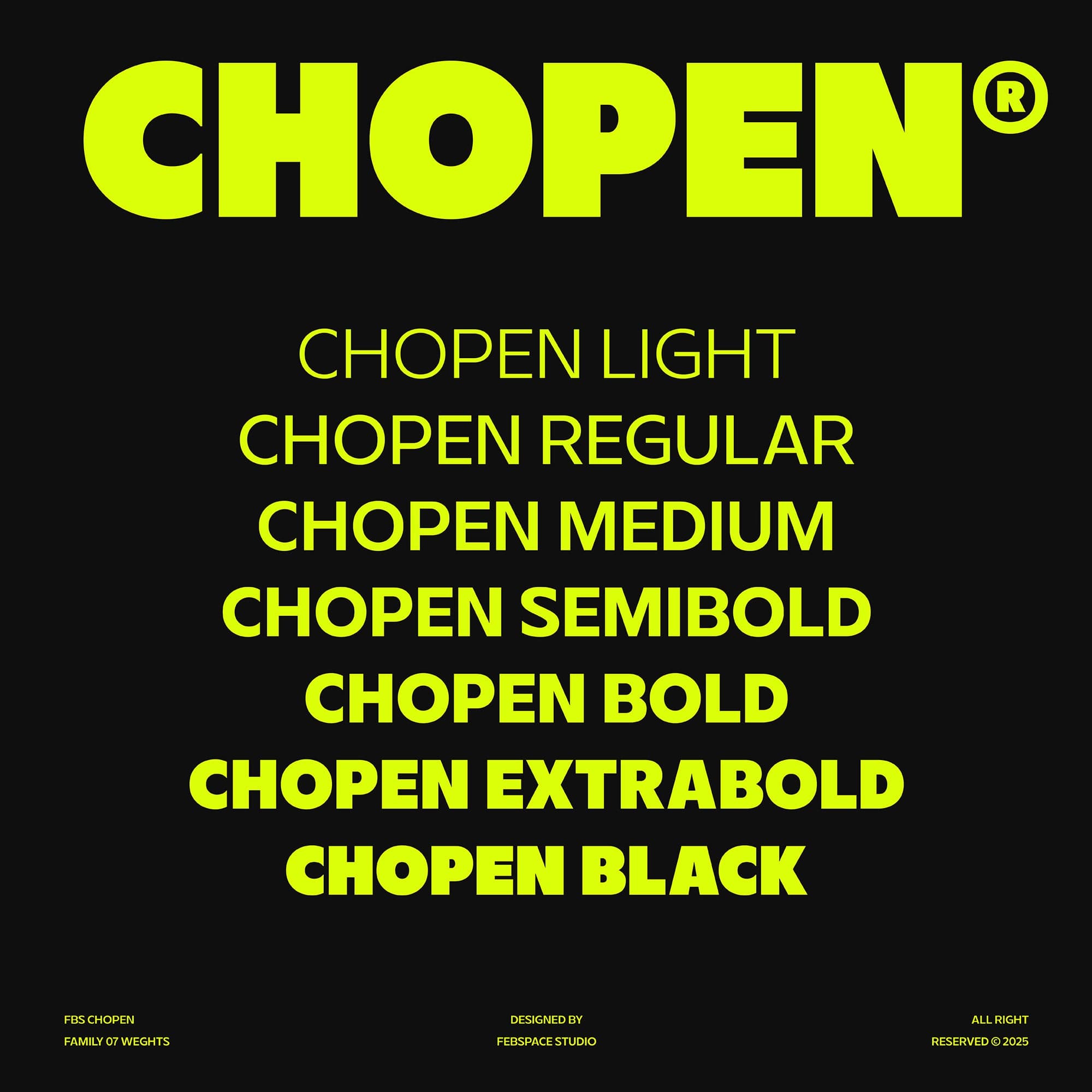
<p><strong>FBS Chopen</strong> delivers a geometric sans-serif design, inspired by the retro aesthetics of the 80's sans, with a modern and minimalist touch. Designed for today’s digital and branding needs, it offers the perfect balance of readability and style. Its clean, structured look makes it an excellent choice for interface design, corporate branding, and contemporary visual identities.</p> <p><strong>Extensive Glyph Set and Features</strong><br>Every font in the Chopen family is equipped with over 431 glyphs, offering advanced typographic options to support your creativity:</p> <ul> <li><strong>OpenType Features</strong></li> <li><strong>Multilingual Support</strong></li> </ul> <p><strong>Font Family Overview</strong><br>FBS Chopen collection includes seven carefully designed weights, from light to black,<br>providing flexibility for both subtle and bold designs.</p> <p>Explore FBS Chopen and discover how its versatile design can enhance your next creative project.</p>